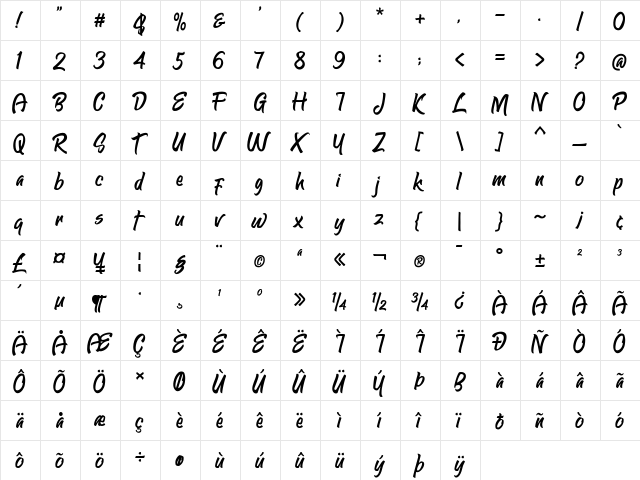
Stasiun Regular
| Designer | Lambert Wahang |
Design Context for Stasiun Typeface
Stasiun is a composed and adaptable typeface that performs quietly and consistently across a wide range of design contexts.